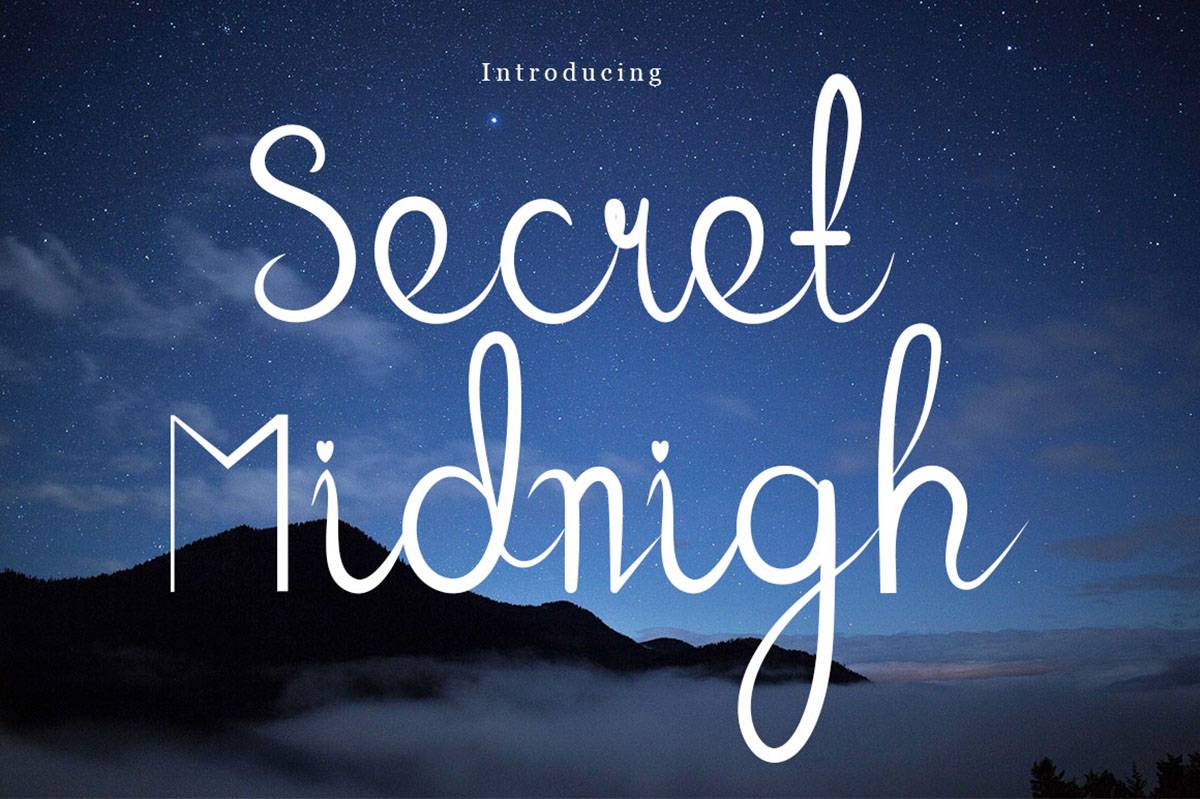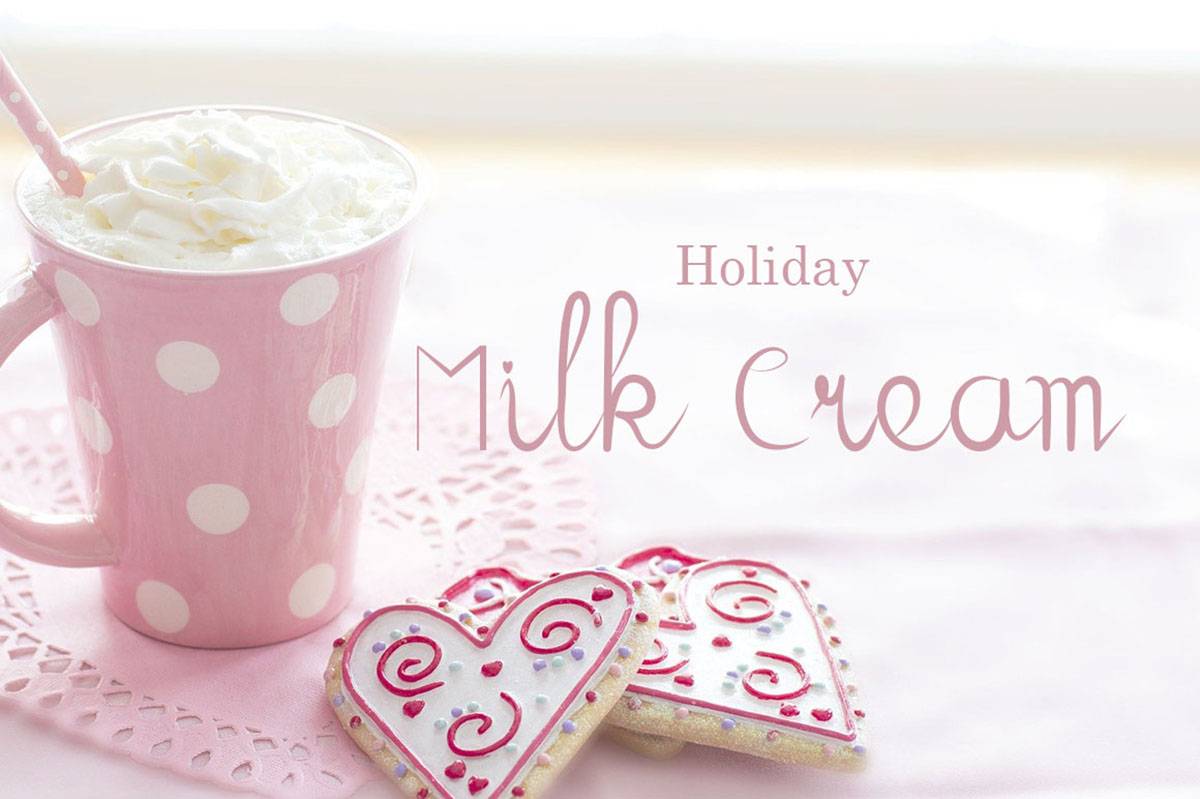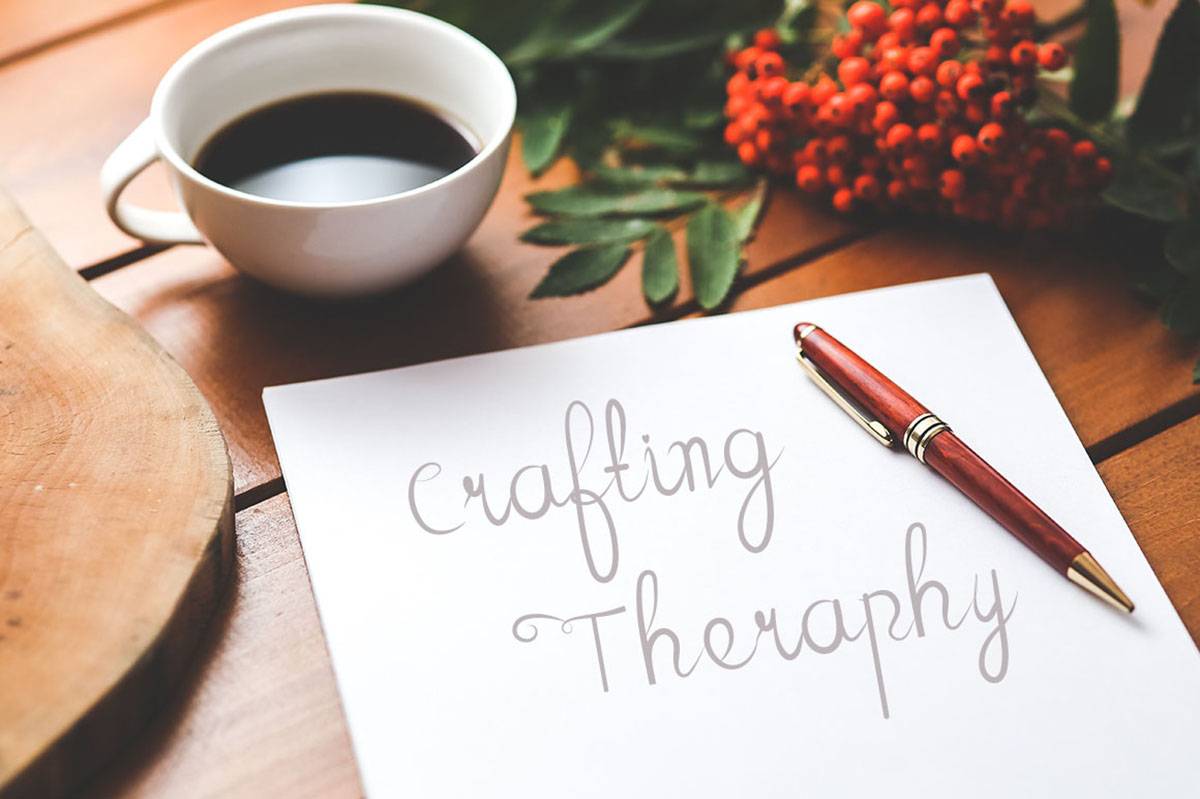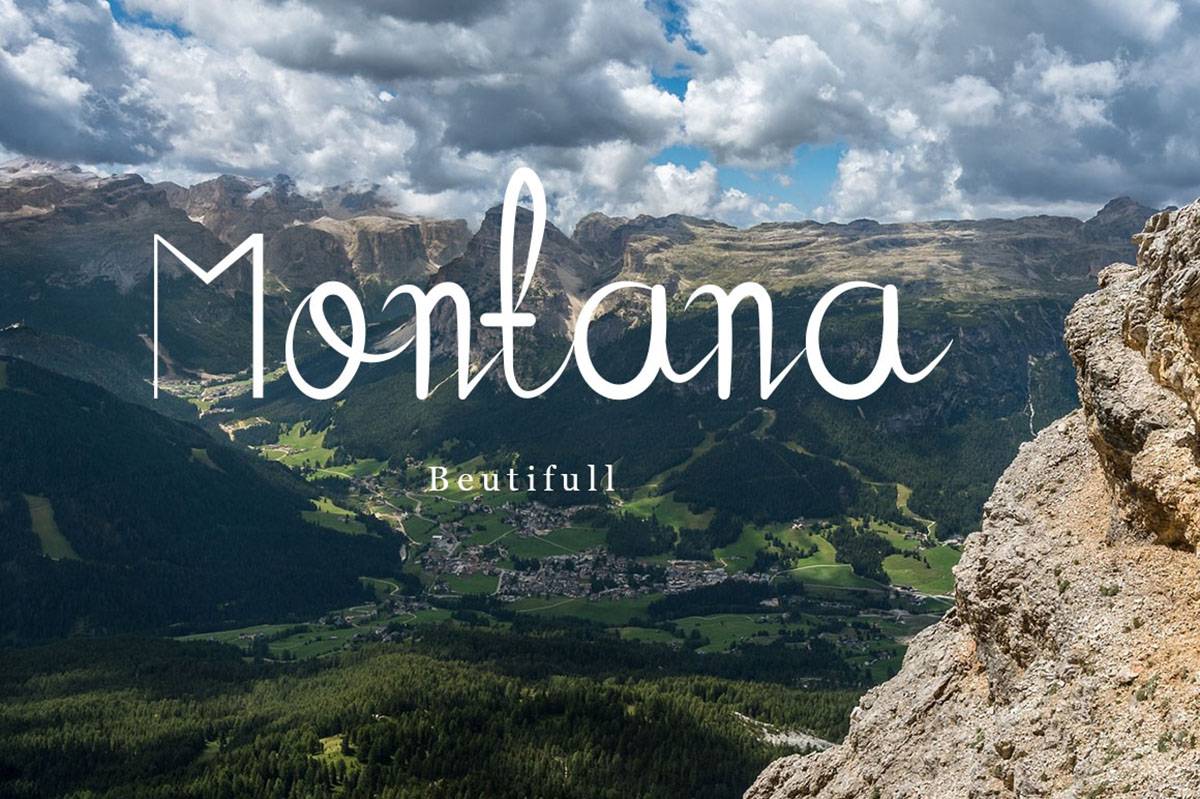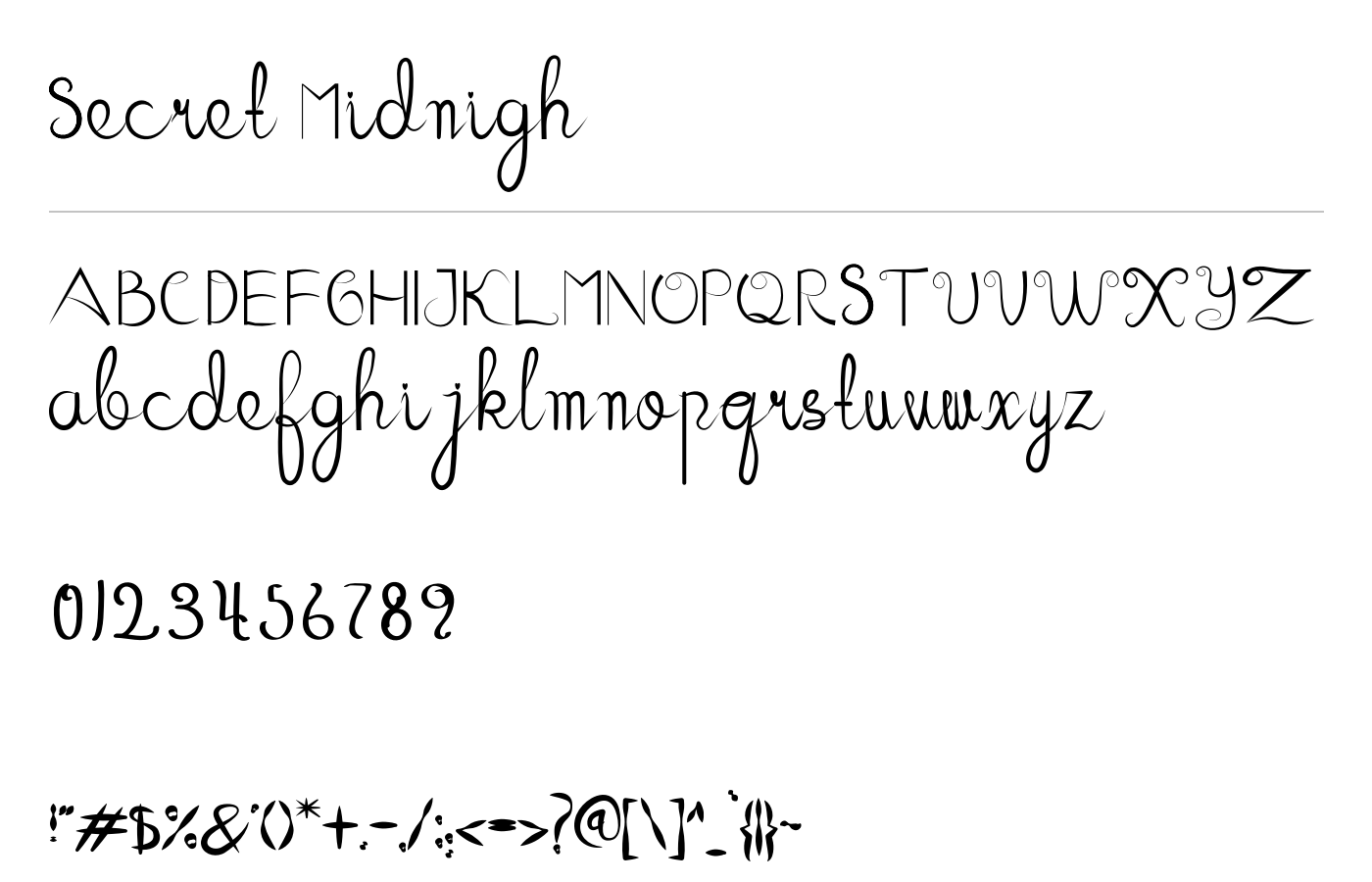
Secret Midnigh is a whimsical handwritten font with a delicate, tall structure and playful swirls that add charm to each letter. Its thin strokes and unique curls give it a light, airy feel, making it perfect for creative projects that want to express elegance with a quirky, artistic touch. This font works great for invitations, branding, and decorative headlines where a personal, enchanting style is desired.
Secret Midnigh Font
About Secret Midnigh Font